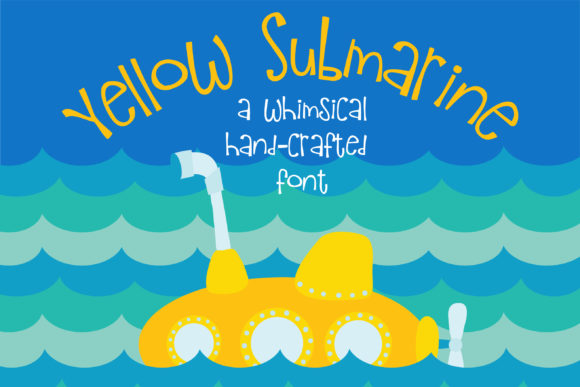
Step into a world of pure imagination, where letters dance across the screen like a vibrant symphony of colors. Introducing Yellow Submarine Font, the enchanting script that will ignite your creativity and transport you to a realm of endless possibilities.
Crafted with love by the ingenious minds at Illustration Ink, this whimsical and child-like font is a masterpiece of digital artistry. Each character exudes a playful and carefree spirit, as if plucked straight from the pages of a beloved children's book.
Yellow Submarine Font is not just a collection of letters; it's an invitation to unleash your inner child and embrace the joy of artistic expression. With its playful curves and bouncy loops, this font will add a touch of magic to any project, from personal letters to imaginative designs.
Whether you're a seasoned designer or a budding artist, Yellow Submarine Font is the perfect tool to bring your ideas to life. Its versatility knows no bounds, making it an excellent choice for a wide range of creative endeavors, including:
* Eye-catching logos that demand attention
* Enchanting invitations that spark wonder
* Playful social media posts that evoke joy
* Whimsical website graphics that capture the imagination
* Personal notes that spread happiness
Don't settle for ordinary fonts that blend into the background. Embark on an extraordinary journey with Yellow Submarine Font, where your words will transform into works of art. Let your creativity soar and experience the pure joy of self-expression with this extraordinary script.